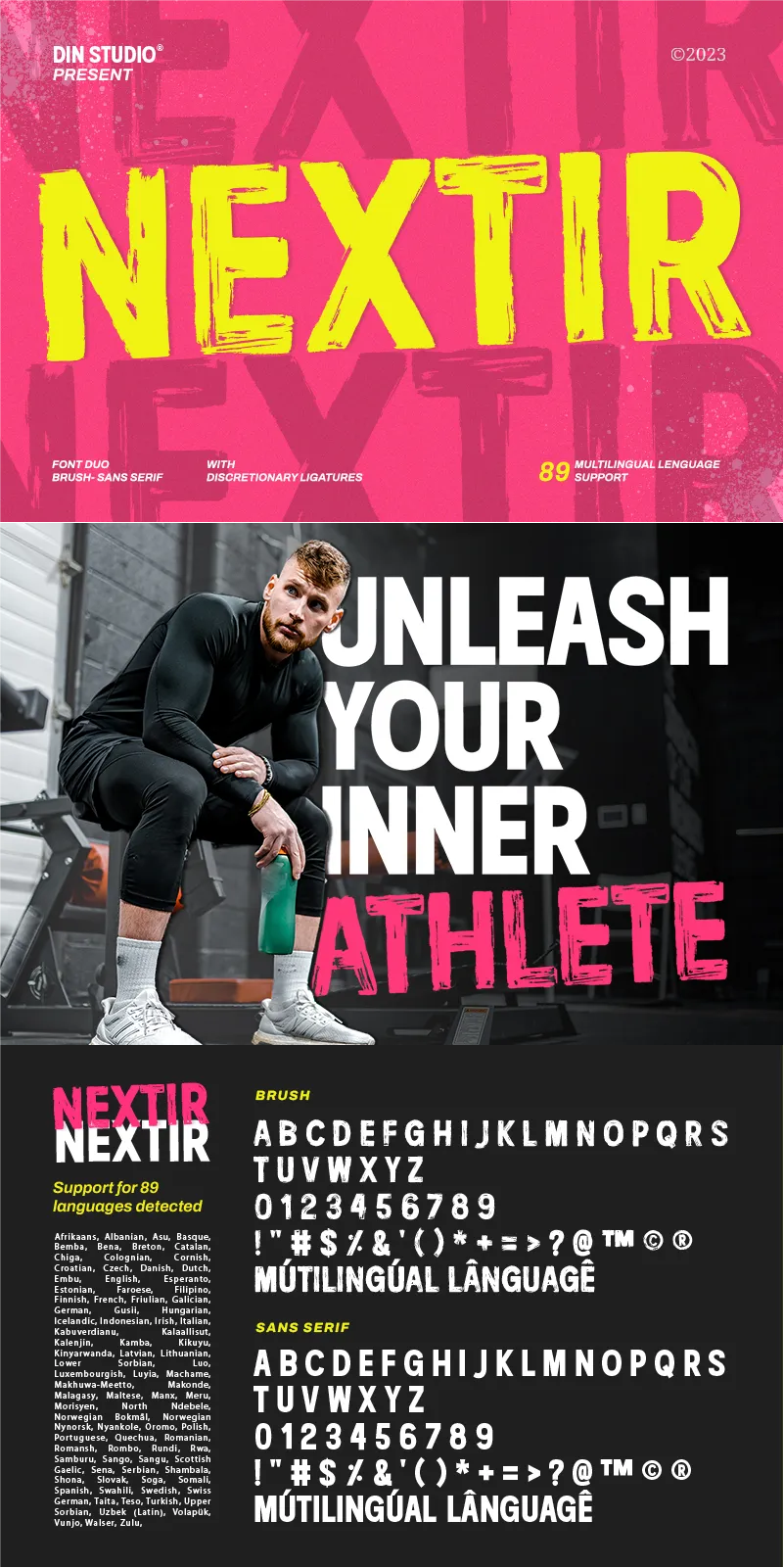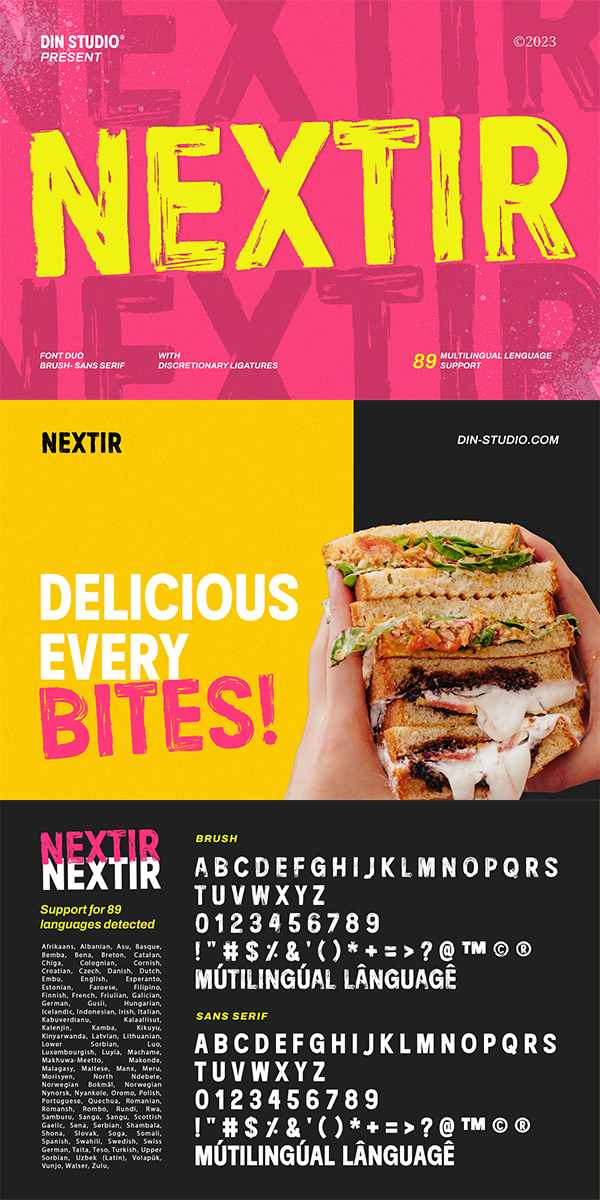
NEXTIR Font
About NEXTIR
Nextir is an extraordinary brush sans serif font that redefines modern typography. Designed with large letters and a thick weight, its distinctive square letter shapes are the epitome of contemporary style. What sets Nextir apart from the ordinary is its brush detailing. This unique blend of brush strokes and sans serif elements adds a layer of organic texture to the font.
The combination of large letters, thick weight, square shapes, and brush detailing creates a font that makes a striking statement with a contemporary edge. When you need a typeface that combines strength with artistic expression, Nextir is the perfect choice to infuse your designs with boldness, modernity, and a touch of handcrafted elegance. You can also enjoy the features here.
Nextir fits in headlines, logos, posters, flyers, branding materials, print media, editorial layouts, and many more designs. Find out more ways to use this font by taking a look at the font preview.